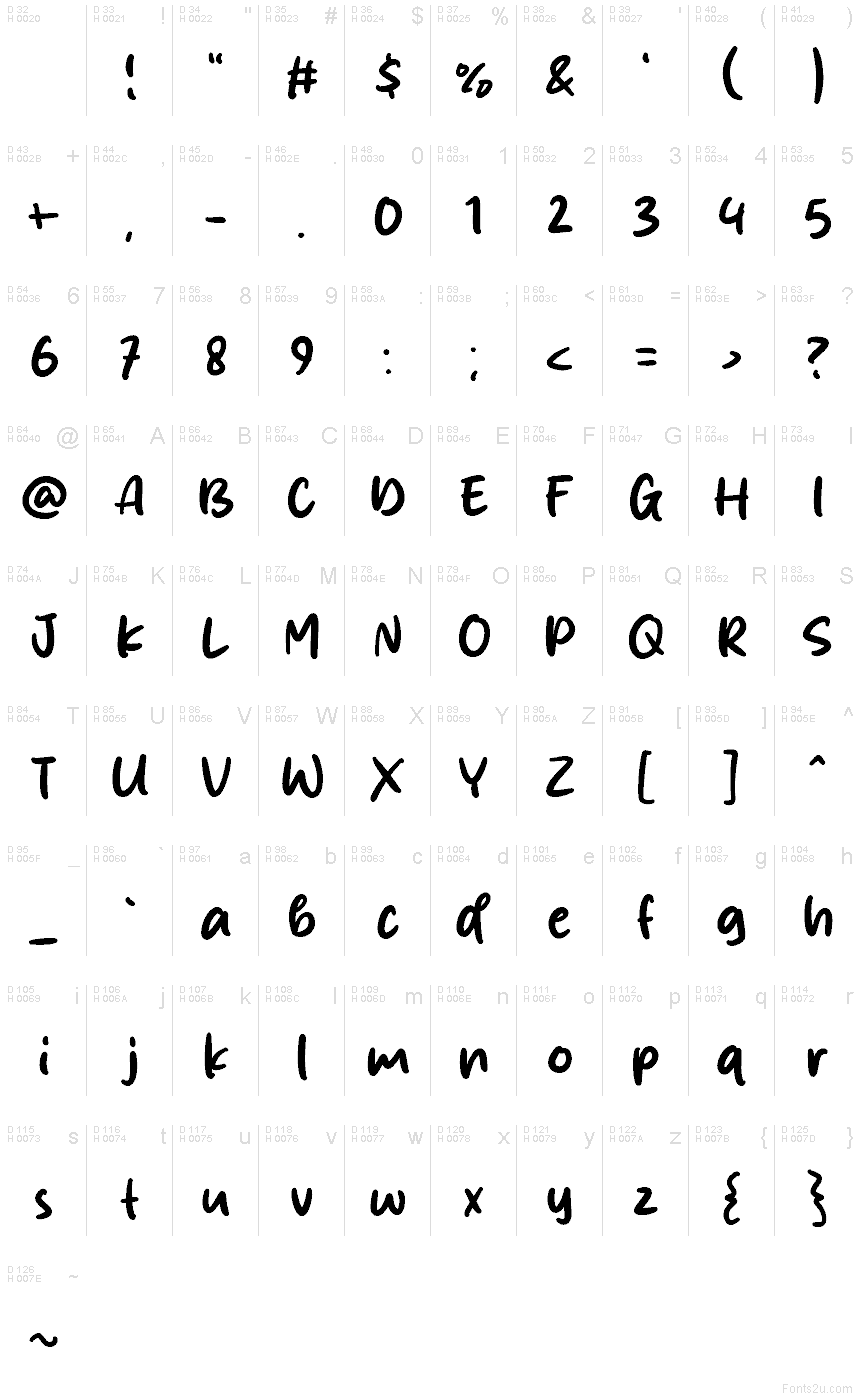
Bertha Smile
Bertha Smile font by Origin Type is a free handwritten font that finally gives you that bold, casual script look without sacrificing clarity. Its inky, marker-style strokes are thick yet smooth, with rounded edges that feel friendly and warm rather than messy. Letters flow with just enough looseness to feel genuinely written by hand, while the spacing stays steady so headlines and short phrases read instantly at a glance.
Using Bertha Smile, you can bring an effortless, human touch to branding for cafés and bakeries, product packaging, quote graphics, greeting cards, stickers, and social media posts. This free font shines when used large and punchy, where its chunky curves and playful rhythm can really breathe. For balance, pair Bertha Smile with a clean geometric sans serif in smaller text to keep layouts grounded and easy to read.